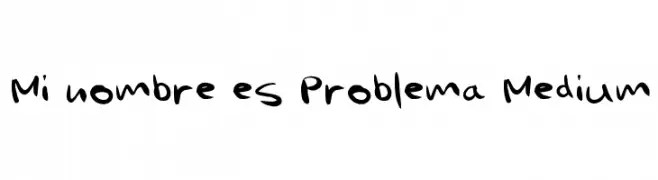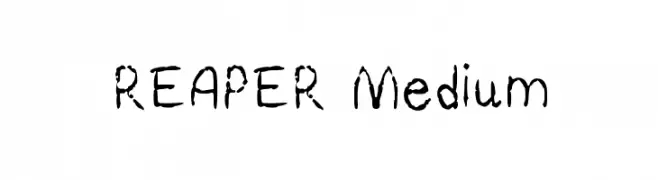
A whimsical, decorative font with playful curls and loops.
A modern, geometric sans-serif font with uniform stroke width.
A modern, italic typeface with clean lines and balanced proportions.
A playful, whimsical handwritten font with dynamic strokes and a casual feel.
A bold, electrifying font with angular edges and dynamic lightning motifs.
A playful, handwritten font with tall, narrow letterforms and smooth lines.
A classic serif font with structured, elegant characters and pronounced serifs.
A playful, hand-drawn font with bold, rounded characters and whimsical symbols.
A modern, clean sans-serif font with balanced proportions and consistent stroke widths.
A modern, medium-weight sans-serif font with an italic slant.
A clean, modern sans-serif typeface with geometric letterforms and excellent readability.
A modern, medium-weight italic sans-serif font with a sleek and professional look.
A modern, clean sans-serif typeface with balanced letterforms and excellent readability.
A modern, medium-weight italic sans-serif font with a sleek and dynamic style.
A clean, modern sans-serif font with medium weight and excellent readability.
A modern, medium-weight italic sans-serif font with a sleek and dynamic appearance.
A playful, hand-drawn font with quirky, artistic elements.
A playful, hand-drawn font with a quirky and artistic flair.
A decorative and playful font with intricate patterns and artistic flair.
Casual handwritten script font.
A playful, hand-drawn font with whimsical curves and dynamic strokes.
A modern, geometric sans-serif font with balanced proportions.
A modern, medium-weight italic sans-serif font with clean lines and subtle elegance.
A playful, bold handwritten font with rounded, irregular letterforms.